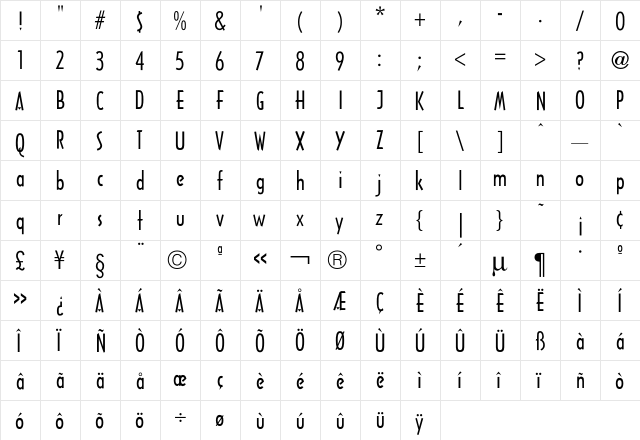
Arquitectura Regular
Design Context for Arquitectura Typeface
Arquitectura is a composed and adaptable typeface that performs quietly and consistently across a wide range of design contexts.
Pro Tip: Pair Arquitectura with a font of contrasting weight or personality to build a more expressive typographic hierarchy.